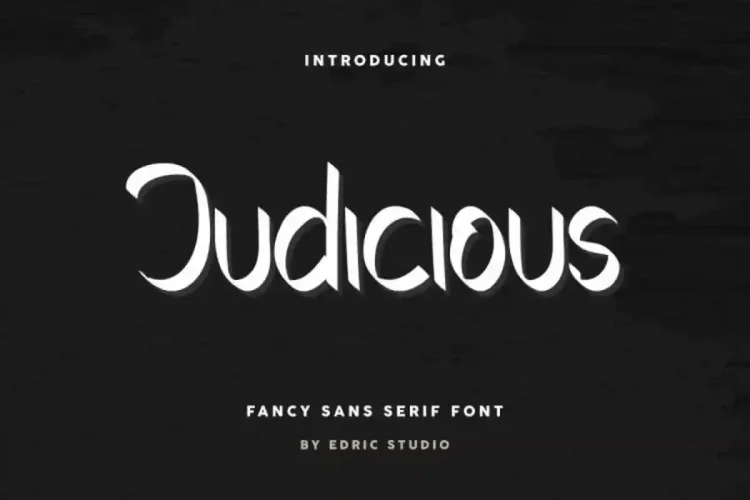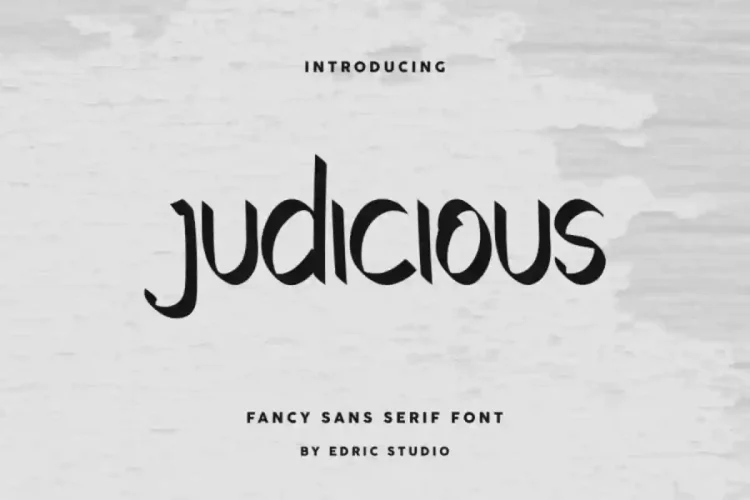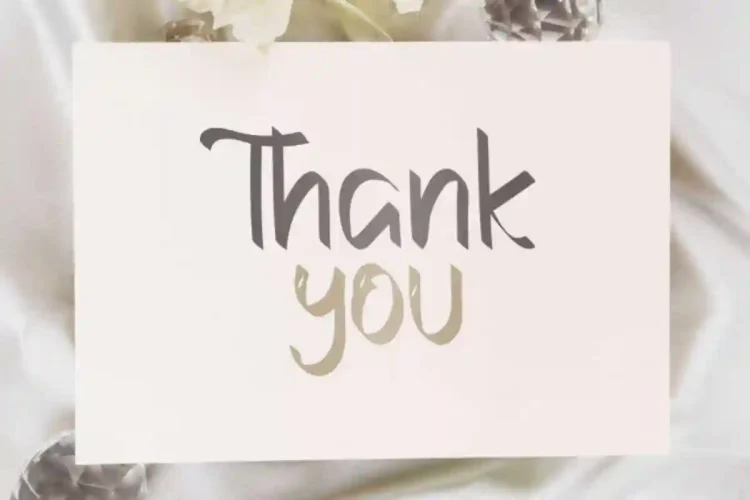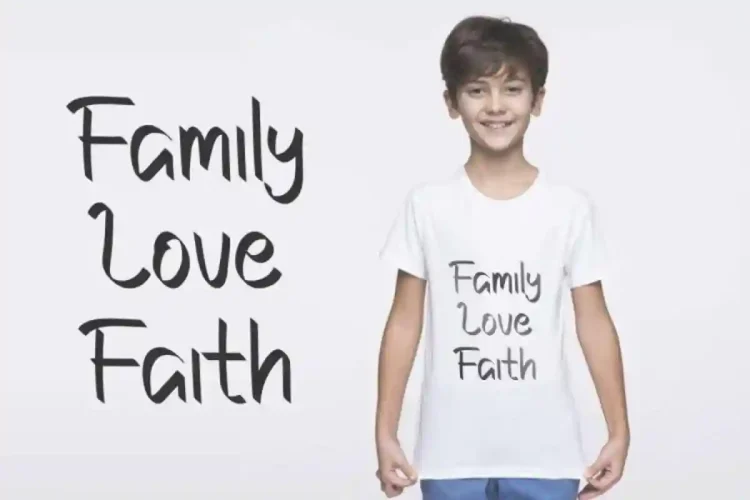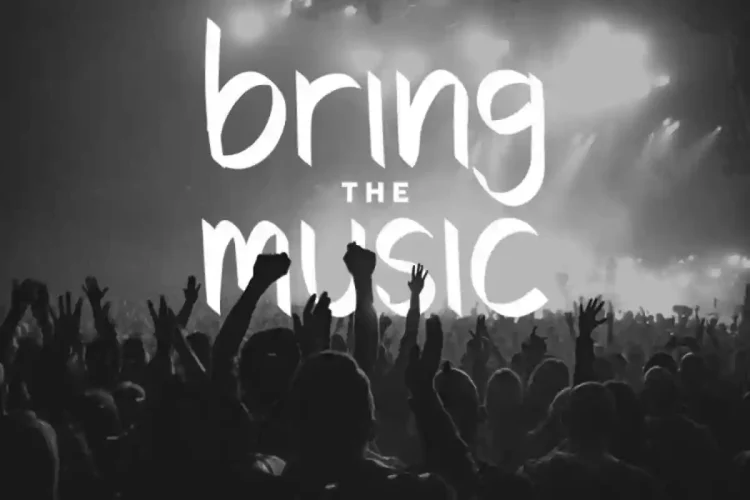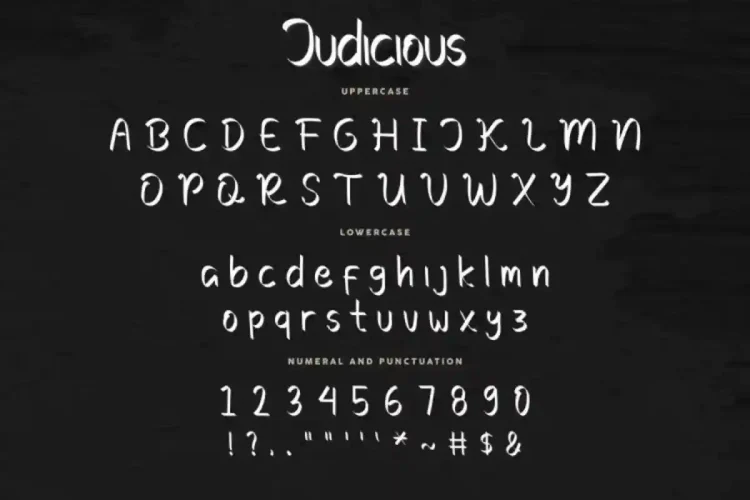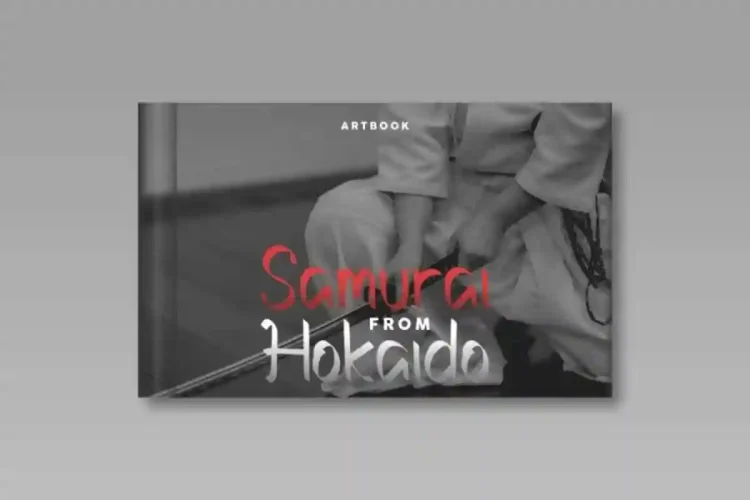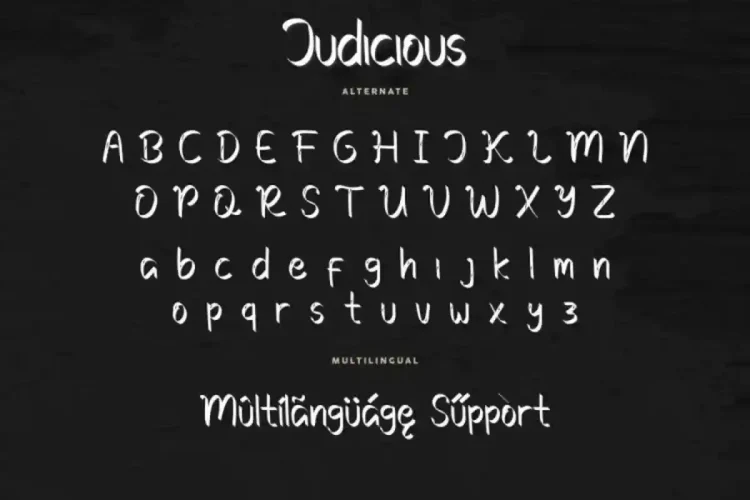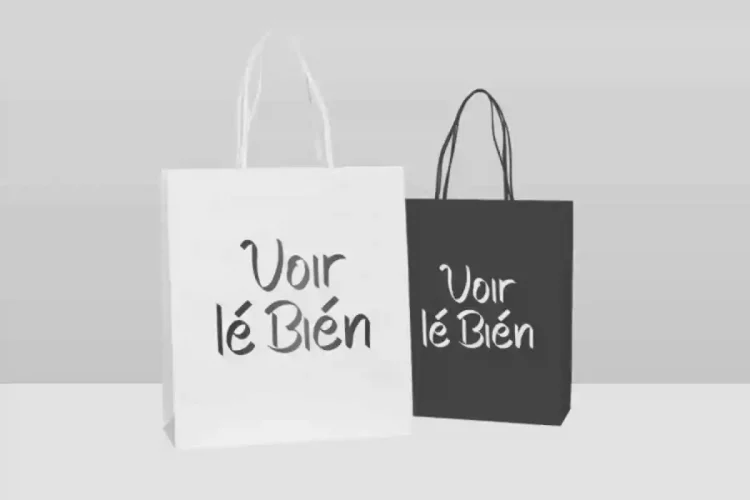
Judicious Fancy Modern Handwritting Font
Judicious Modern Handwritting Font is a fancy sans serif font with handwriting style. Handcrafted in our Studio, Indonesia. Judicious Font is an exclusive handwritting font with unique styles : fun, casual, stylish and classic style. It has a great characters set, perfectly managed with well spaced and kerning. Judicious Font will be great for any projects  including : branding, logo (with extended license), stationery, business card, signage, flyer, brochure etc. Many industries will be match for this typeface: school, wedding, events, non profits foundation, florist, gardening, makeup artist, travel, hotel, musician etc.